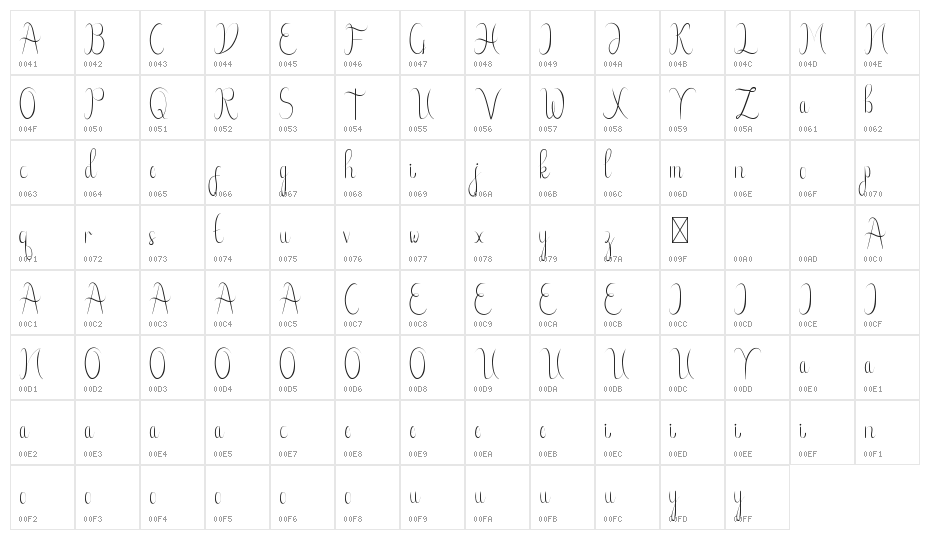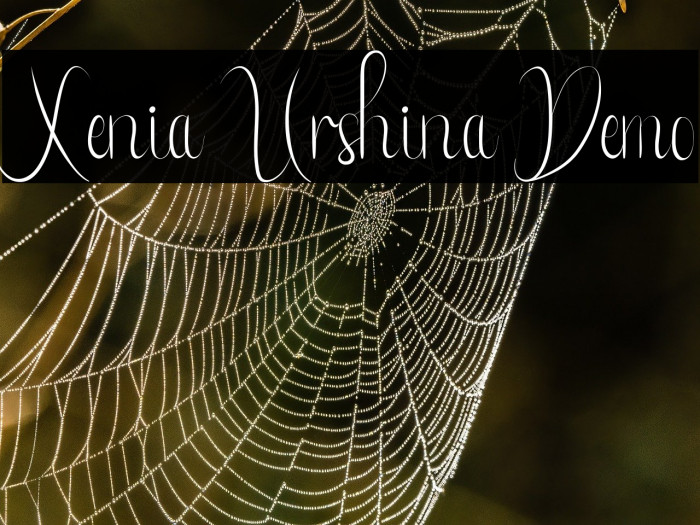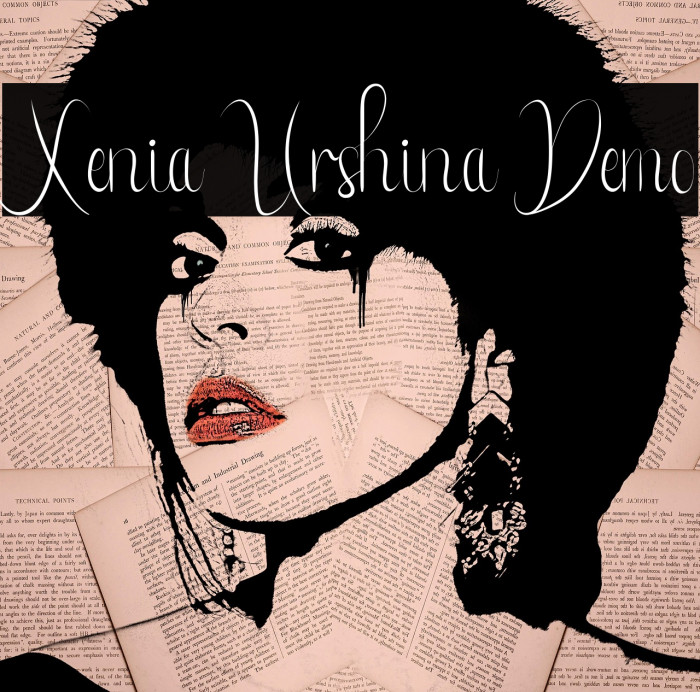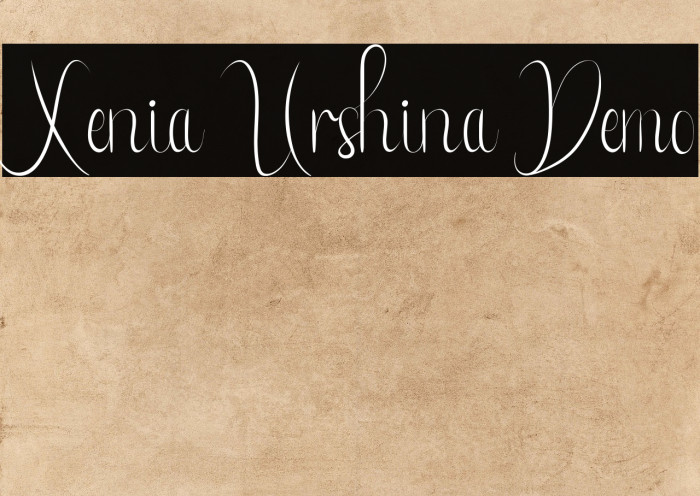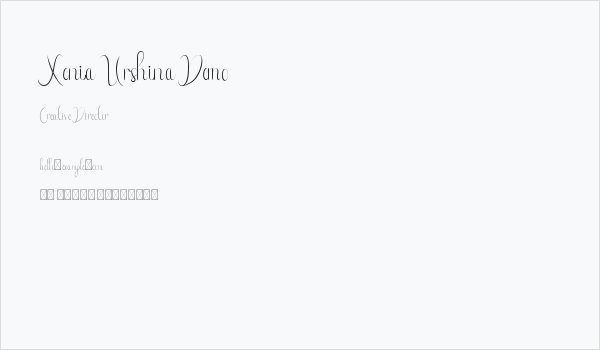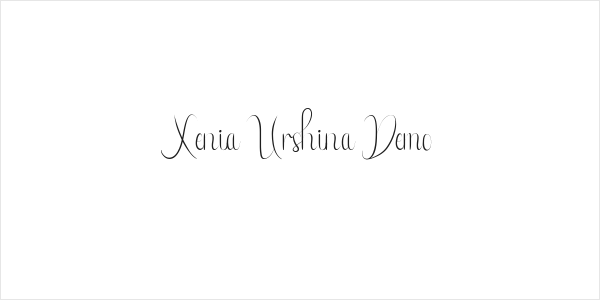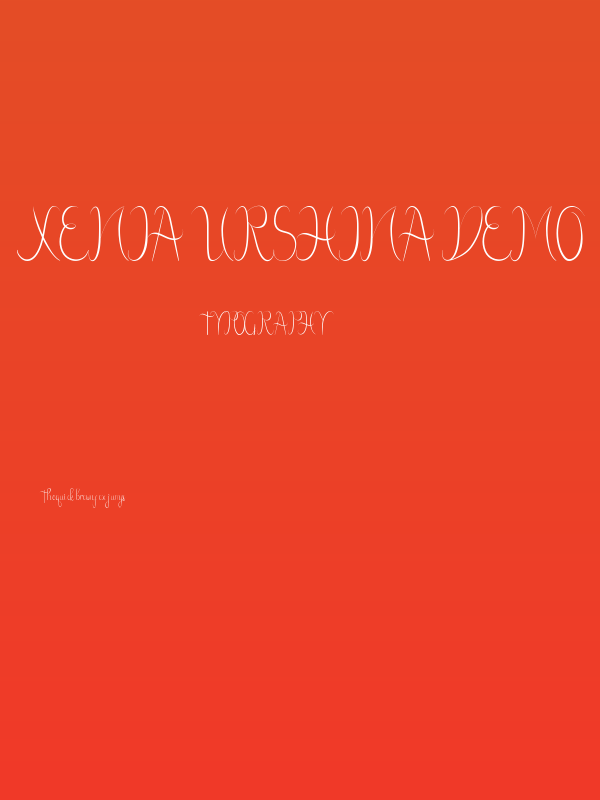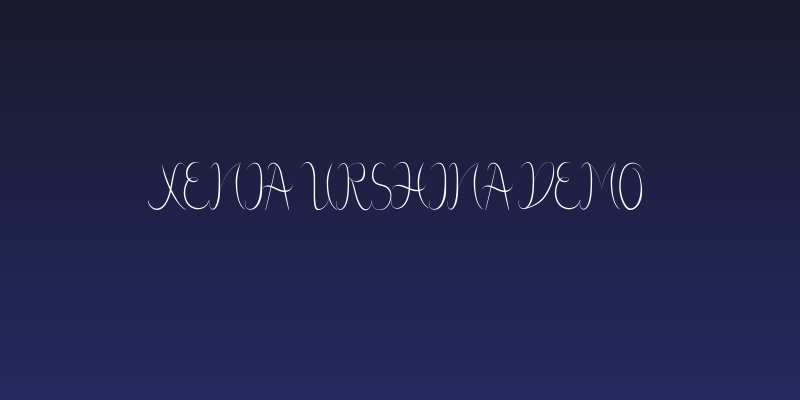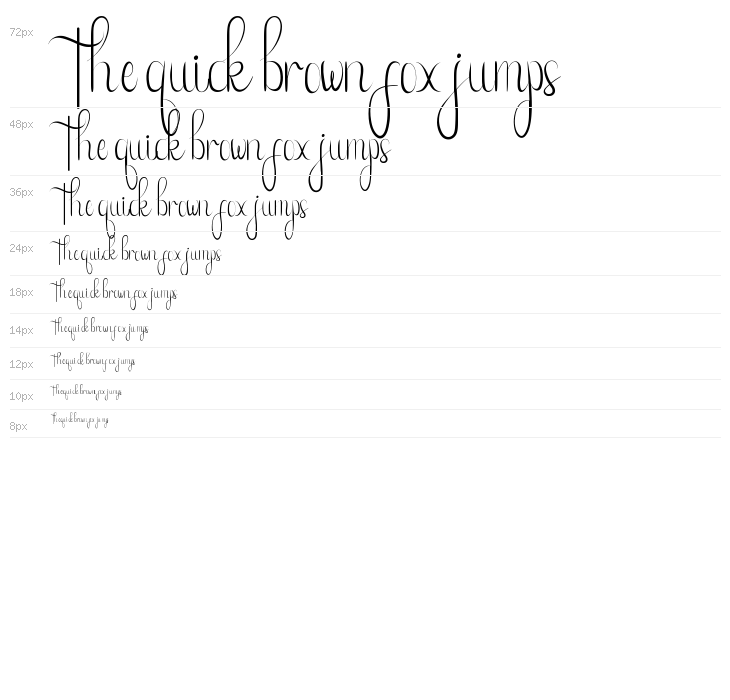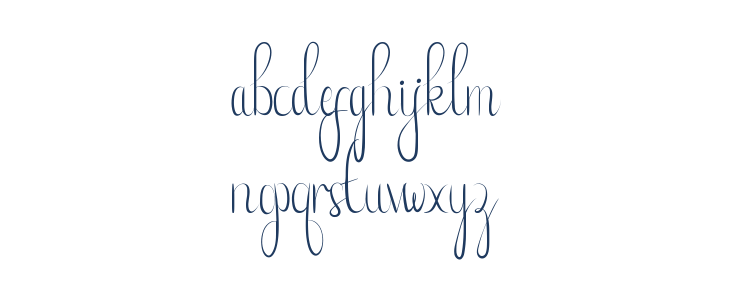
Xenia Urshina Demo Font
Xenia Urshina Demo Description
This font features an elegant and flowing script style, characterized by its delicate and elongated letterforms. The uppercase letters exhibit a graceful, looping design that adds a sense of sophistication and fluidity. The lowercase letters maintain a consistent style, with smooth curves and a slightly whimsical touch. The overall appearance is airy and light, making it suitable for projects that require a touch of elegance and refinement. The font's unique style is accentuated by its thin strokes and high contrast, which enhance its readability while maintaining an artistic flair.
| Proposed Projects | Ideal for wedding invitations, elegant branding, personal stationery, and artistic projects. |